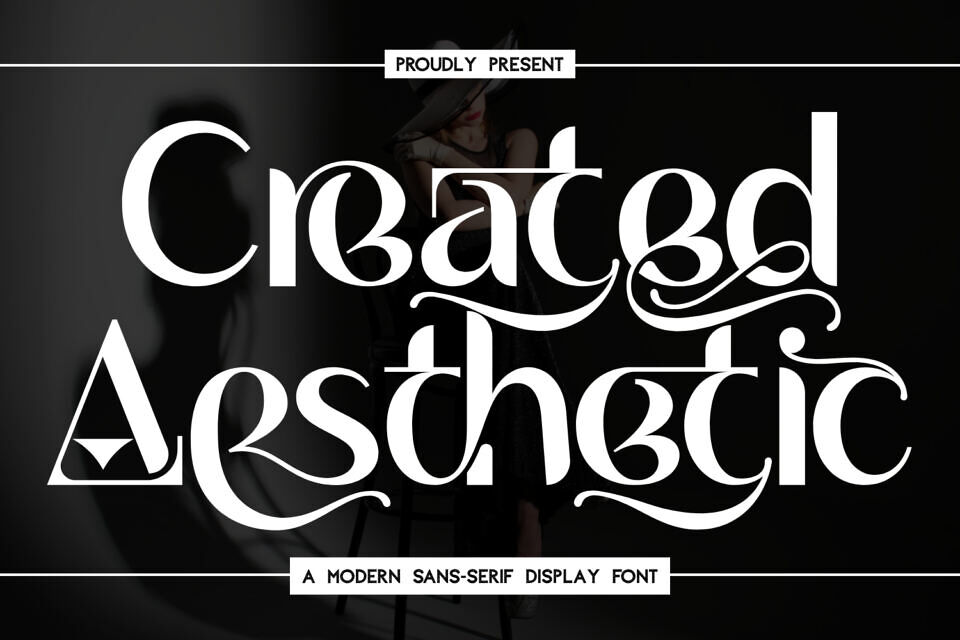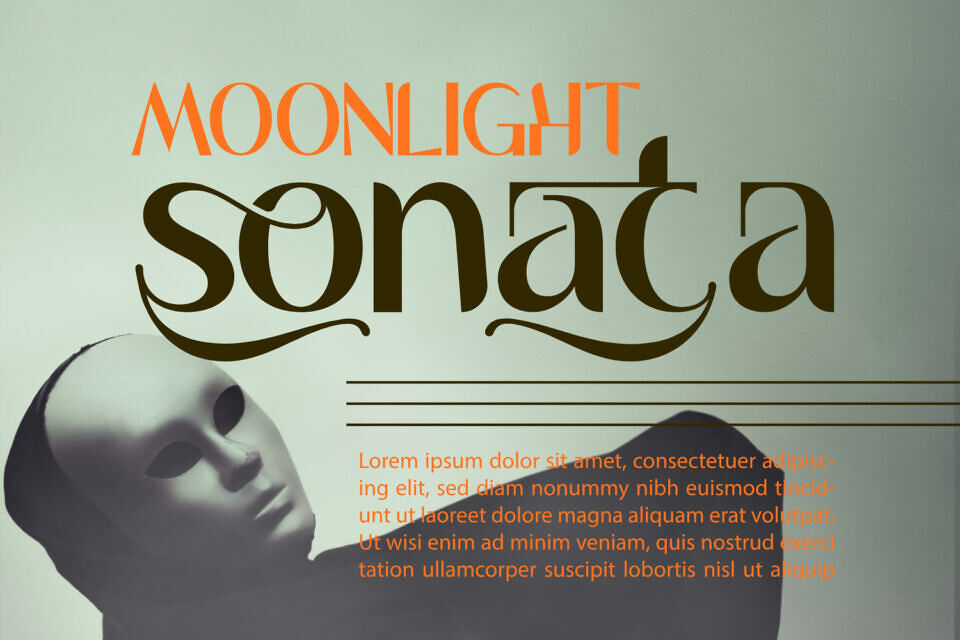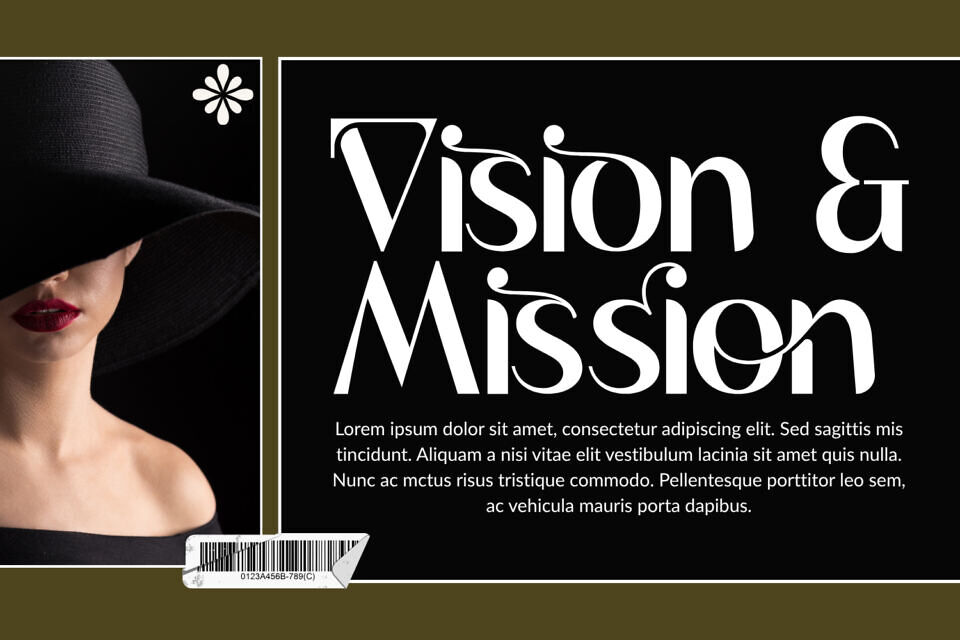
Created Aesthetic Font
Created Aesthetic is a sophisticated Modern Sans-Serif Display Font crafted to elevate your design with elegance and creativity. Its sleek geometric shapes blend seamlessly with expressive decorative strokes, creating a perfect balance between modern minimalism and artistic flair.
Whether you’re working on fashion branding, editorial layouts, packaging, or luxury visual identities, Created Aesthetic will bring a contemporary and distinctive look to your typography.